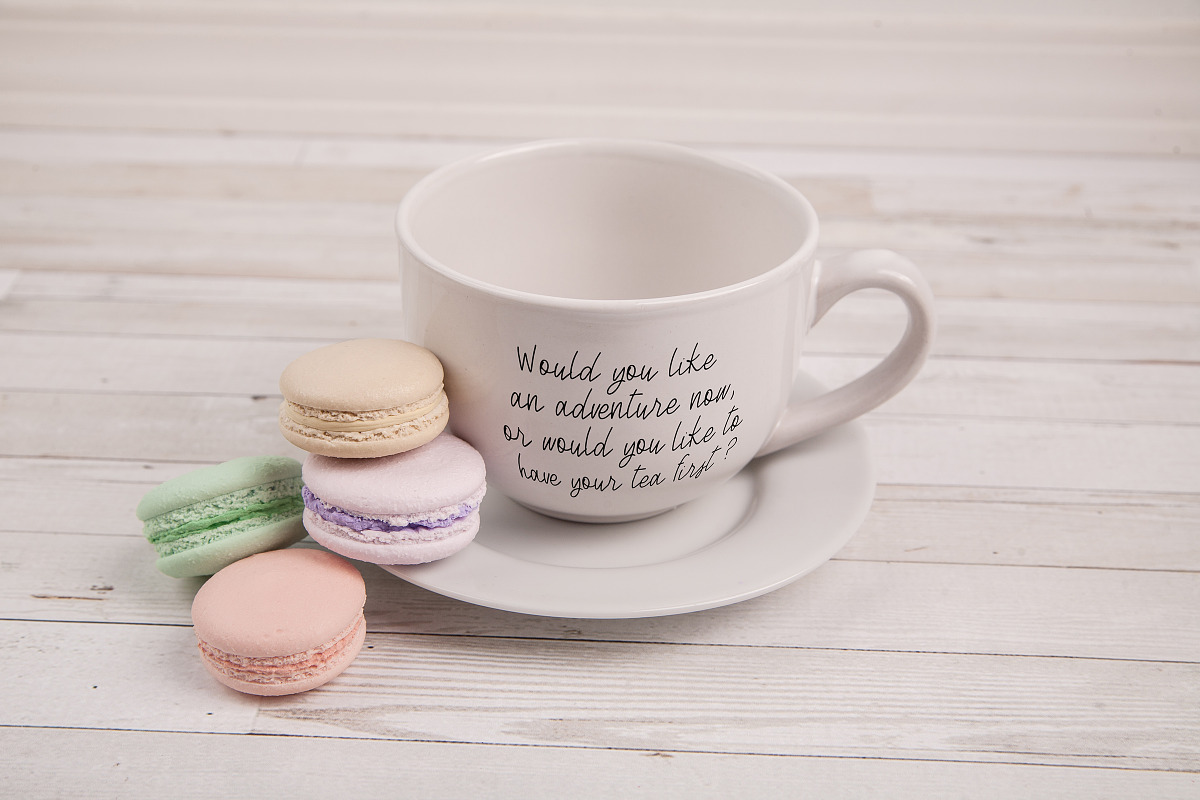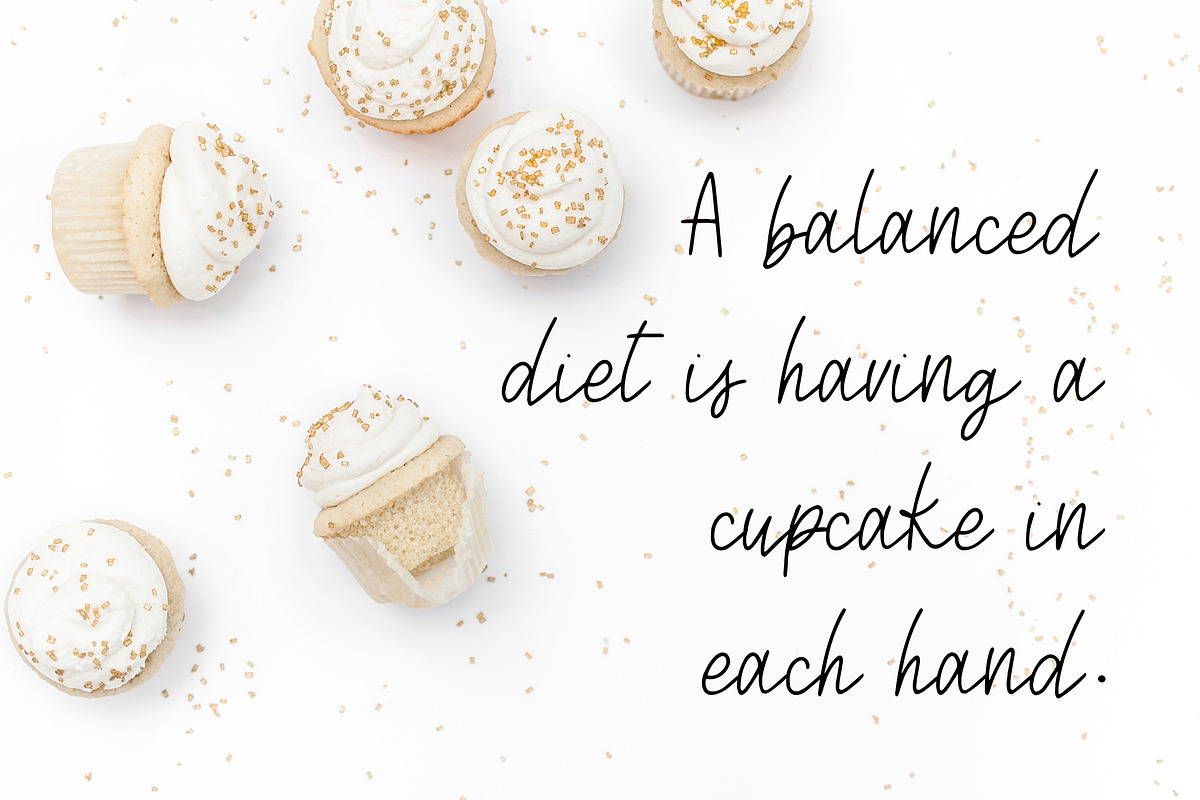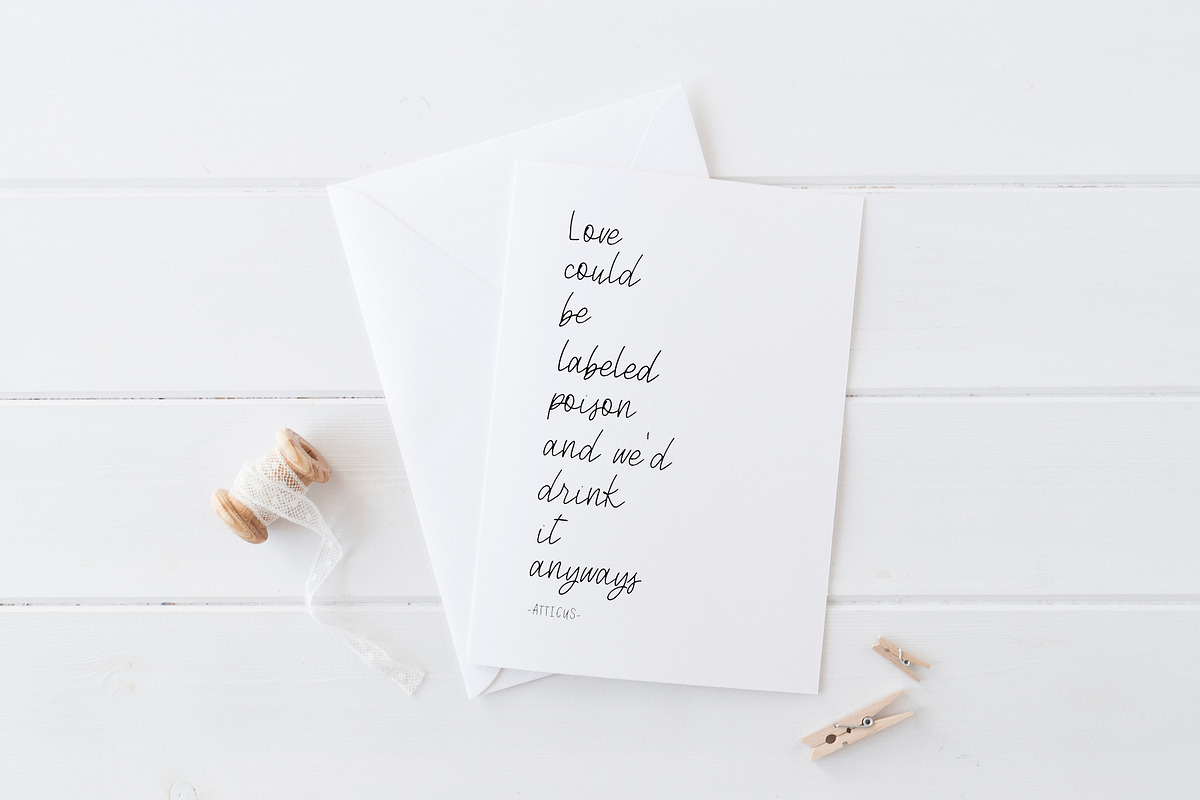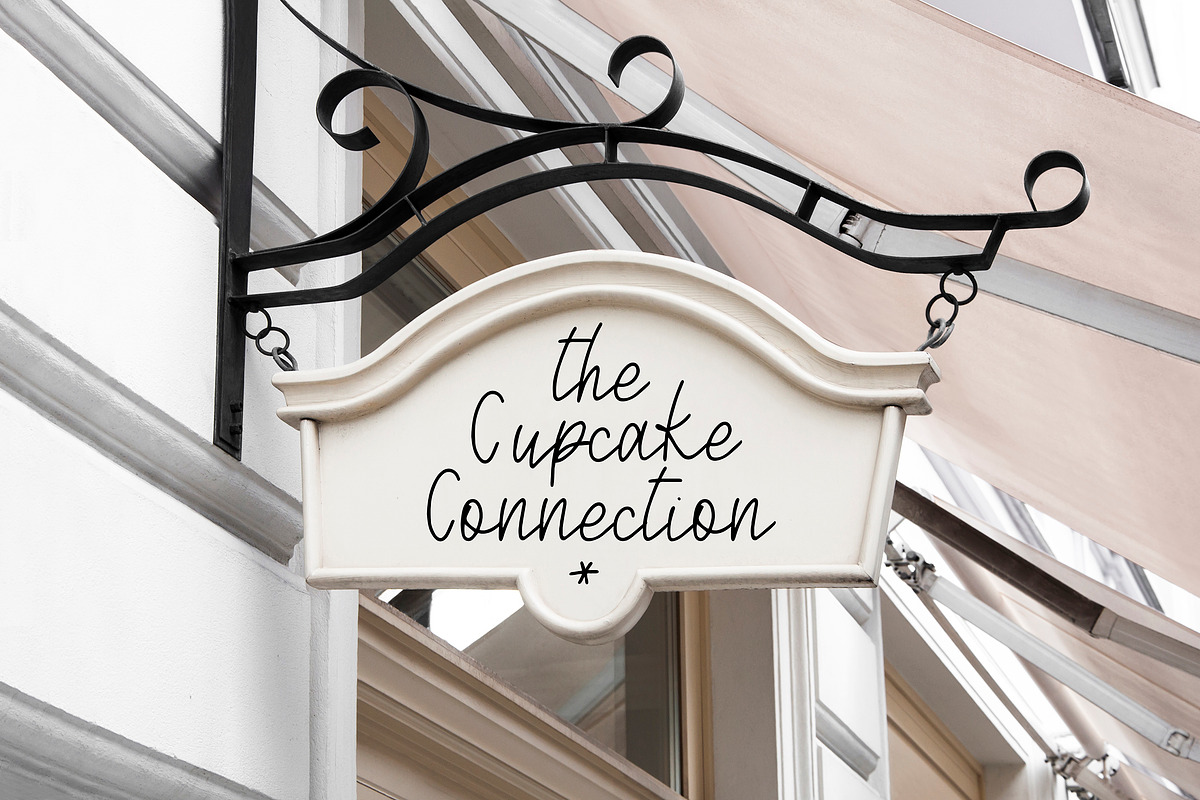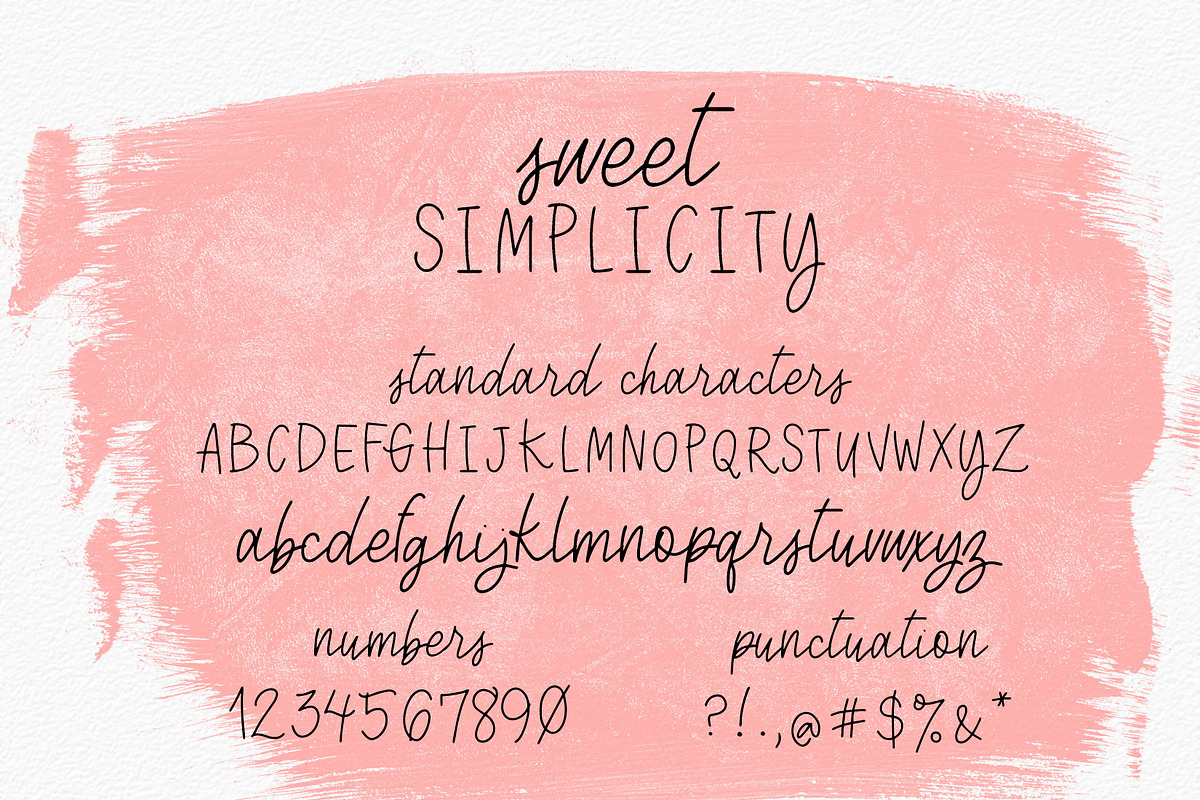
Sweet Simplicity~A Handwritten Font
Sweet Simplicity~A Handwritten Font by Lulu Ink Designs is a font selected for branding, posters, packaging, typography.
Why Sweet Simplicity~A Handwritten Font is worth a look
Sweet Simplicity~A Handwritten Font by Lulu Ink Designs fits naturally into Branding, posters, packaging, typography.